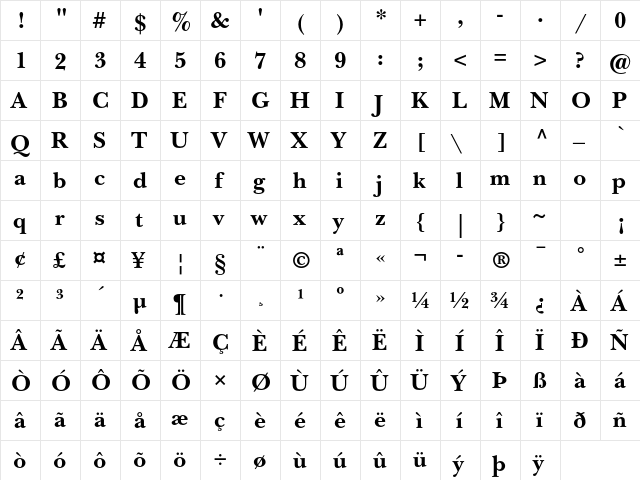
ITC New Baskerville Std Bold Font Preview
ITC New Baskerville Std Bold
ITC New Baskerville Std Bold Font Details
| Designer | George W. Jones |
Design Context for ITC New Baskerville Std Typeface
ITC New Baskerville Std takes a measured approach to typography — its balanced proportions and neutral character make it a reliable workhorse for both digital and print work. The heavy weight commands attention and anchors typographic hierarchies.